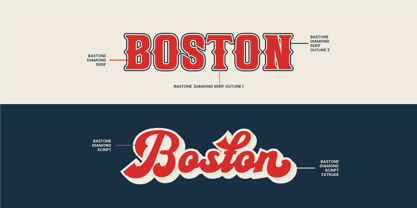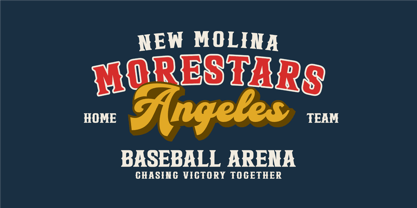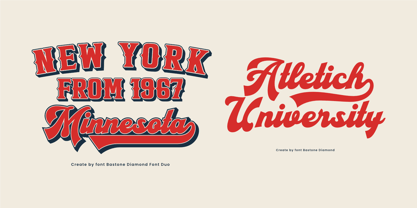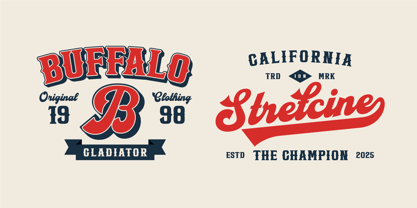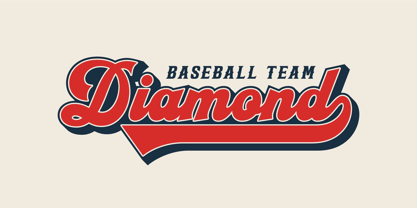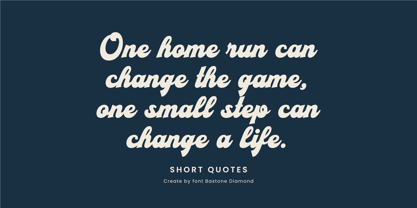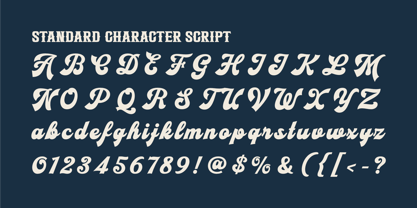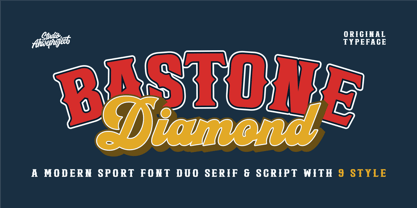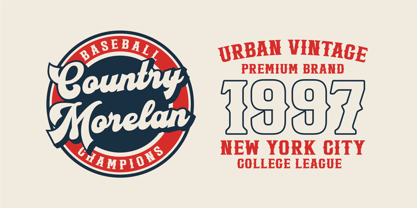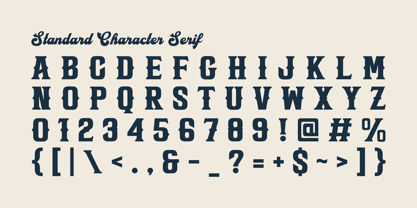
Bastone Diamond
The Bastone Diamond Font Family was designed by Dida Ahluddin and published by ahweproject. Bastone Diamond contains 9 styles and family package options. More about this family
Meet Bastone Diamond—a modern sport font duo built for winning visuals. Use the bold serif for power and the elegant script for flair, then mix across 9 styles to craft standout logos, jerseys, posters, badges, and retro-athletic branding. Versatile, memorable, and ready for your next champion project.
Perfect for: sportswear, college themes, tournament campaigns, and vintage-style packaging.
Features:
• Uppercase & lowercase
• Numbers and punctuation
• Multilingual
• Alternates